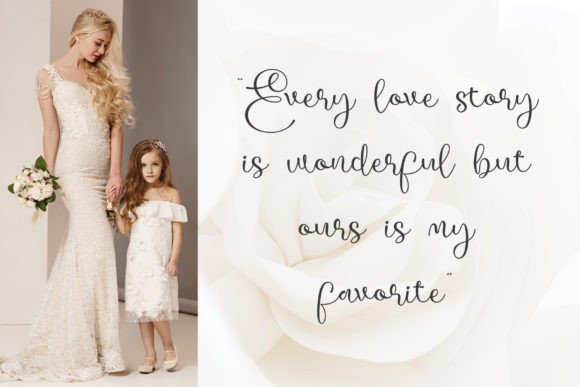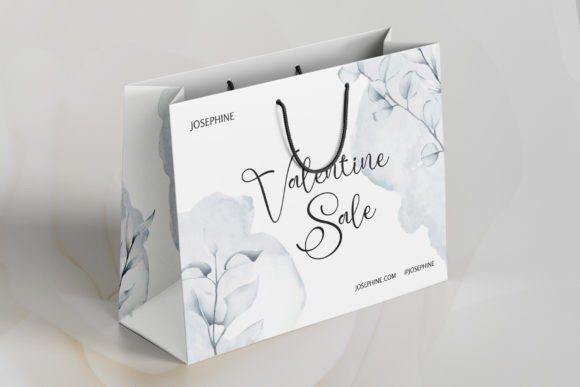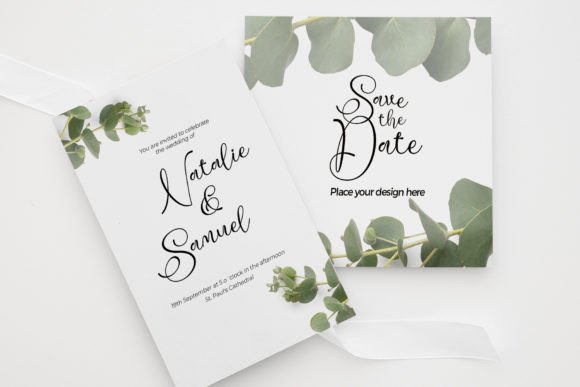
Introduction to Romantica Vibes Font
Indulge in the romantic allure of Romantica Vibes, a captivating script font that weaves passion and sophistication into your designs.
Infuse your projects with the timeless charm of love, as this font adds a touch of grace and warmth With PUA encoding, explore its versatile features effortlessly, ensuring your Valentine’s creations are both enchanting and memorable.
Romantica Vibes Font offers exceptional quality and versatility, making it a valuable addition to your design toolkit. Whether you’re creating for personal projects or commercial use, Romantica Vibes Font delivers professional results.